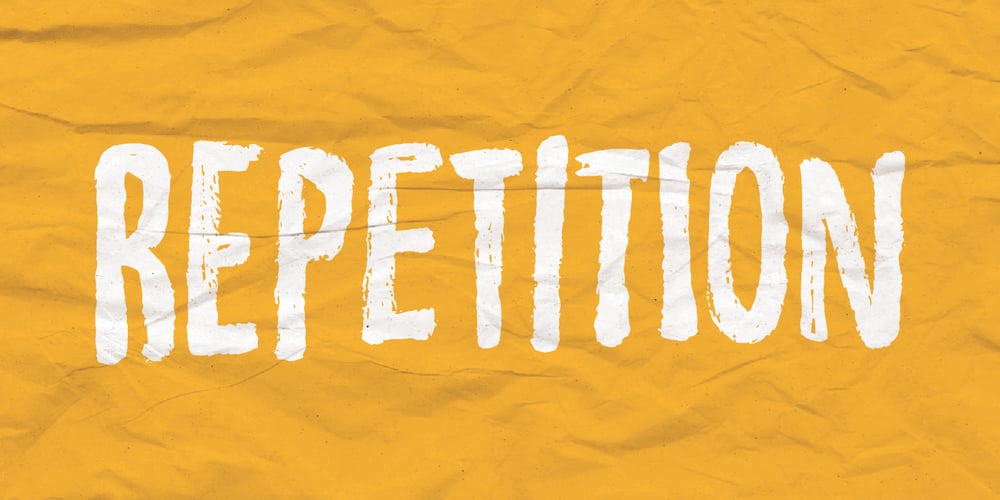
Repetition Font Family was designed by Jakob Fischer and published by PizzaDude.dk. Repetition contains 1 styles and family package options. Authentic and handmade brush font. Comes with a great variety because of the contextual alternates (7 different versions of each letter that cycles as you type!) Also, a wide range of accented glyphs for your pleasure!